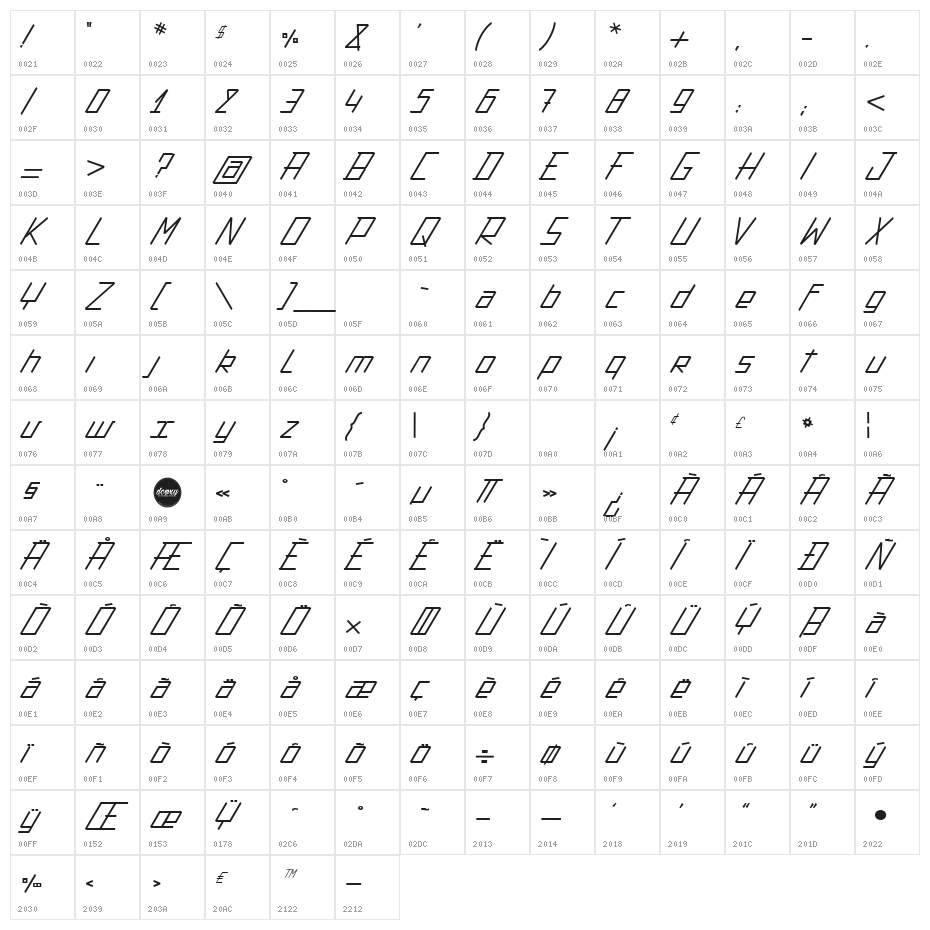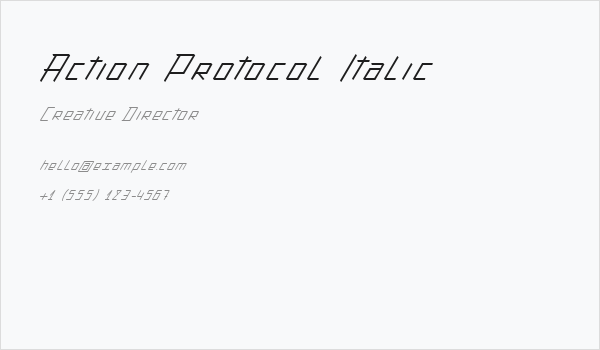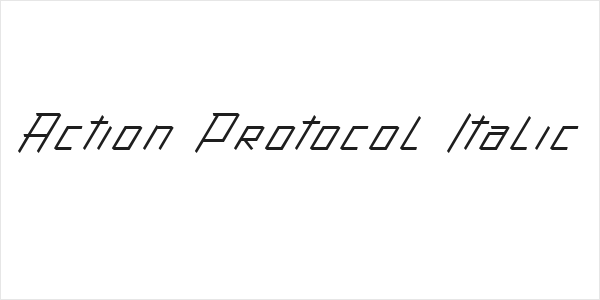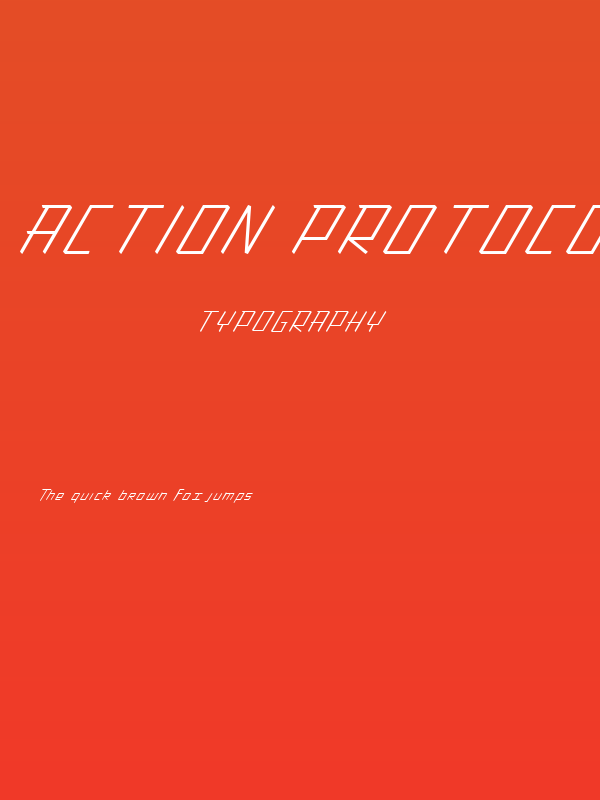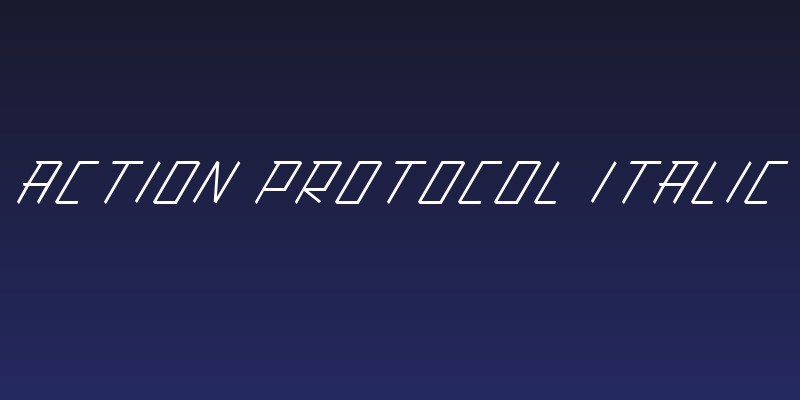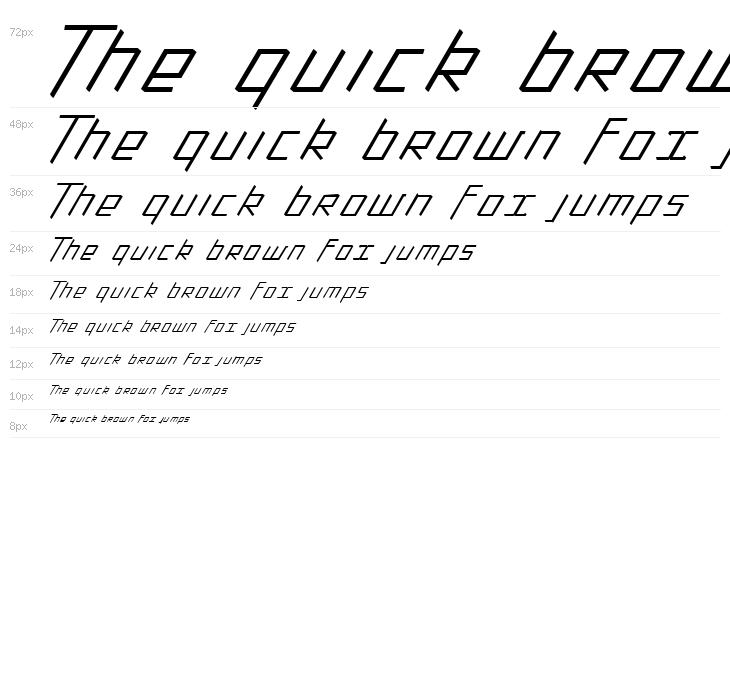
Action Protocol Italic Font
Action Protocol Italic Description
This font exhibits a modern, geometric style with a distinct italic slant, giving it a dynamic and forward-moving appearance. The characters are constructed with straight lines and sharp angles, creating a sense of precision and technicality. The uppercase and lowercase letters maintain a consistent height, contributing to a uniform look. The numerals and special characters follow the same angular design, ensuring cohesion across all elements. The font's clean lines and lack of curves make it highly legible, even at smaller sizes. Its futuristic aesthetic is well-suited for projects that require a contemporary and innovative look.
Overall StyleModern, Geometric
Use CaseHeadlines, Logos, Digital Interfaces
Proposed ProjectsIdeal for technology branding, modern advertising, digital interfaces, and innovative product packaging.